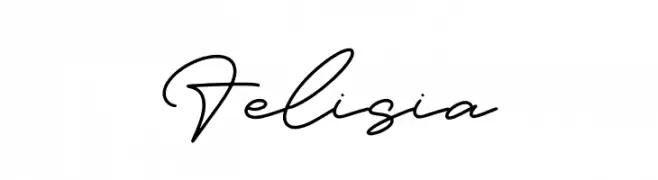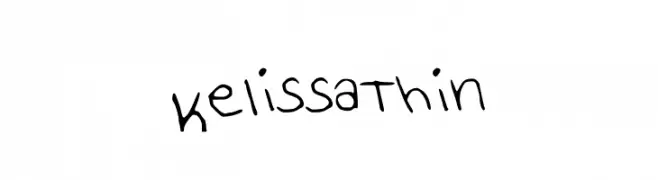
A playful handwritten font with rounded, irregular letterforms.
A classic, elegant script font with ornate uppercase and flowing lowercase letters.
A flowing, elegant handwritten font with a modern yet classic appeal.
An elegant and flowing script font with decorative loops and flourishes.
A sophisticated script font with flowing, signature-like elegance.
A refined, cursive script font with elegant, flowing lines.
A casual, handwritten font with smooth, flowing lines.
A graceful and elegant script font with flowing, interconnected strokes and charming embellishments.
A bold, playful font with rounded, hand-drawn characters.